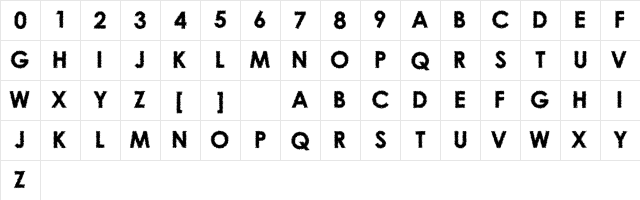
Overcast Skies Regular
Foundry: Kevin Christopher
Designer: Kevin Christopher
Design Context for Overcast Skies
Overcast Skies is a composed and adaptable typeface that performs quietly and consistently across a wide range of design contexts.